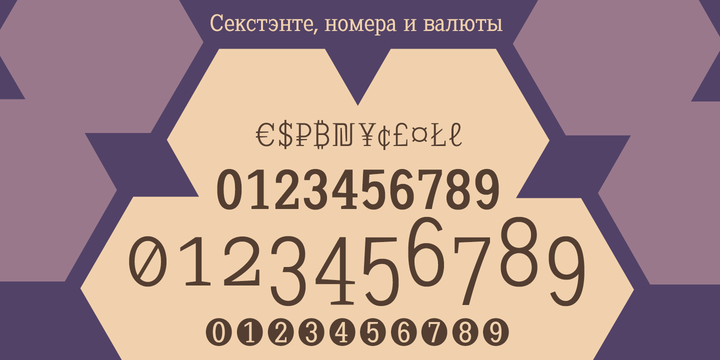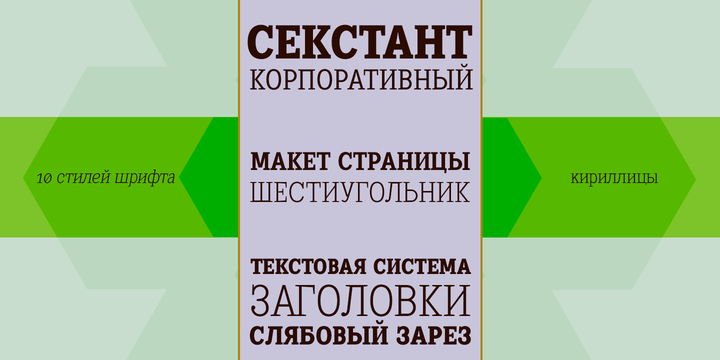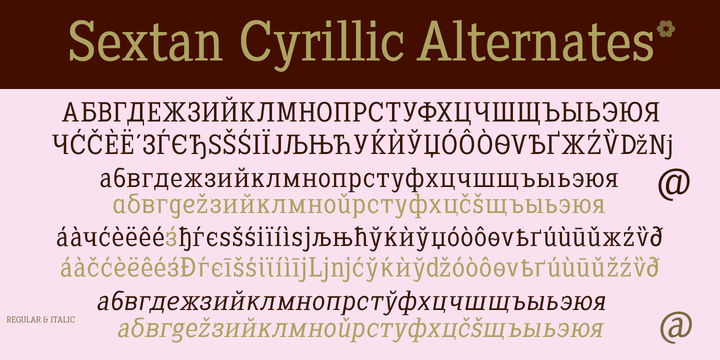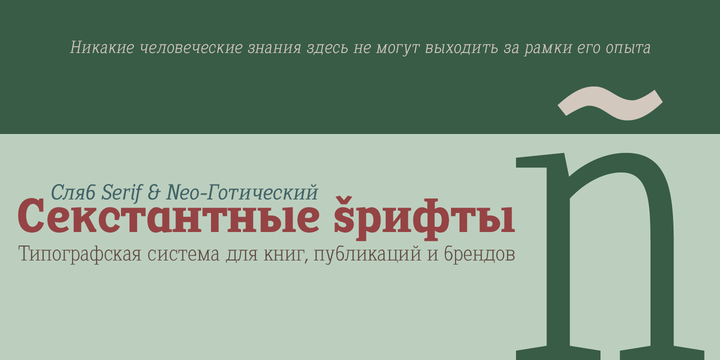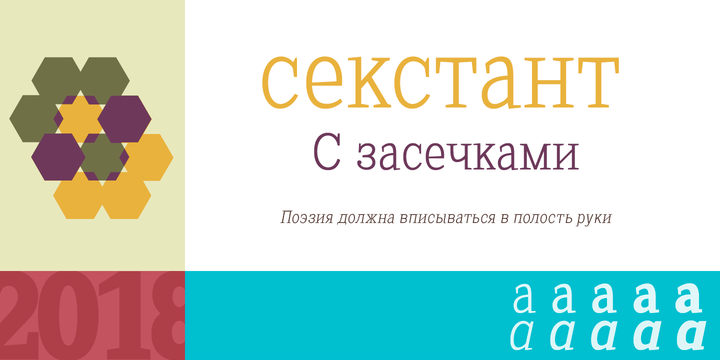
Sextan serif is a Cyrillic typeface family with 10 styles designed for editorial, corporate, advertising or web use.
The excellent readability allows the use in long texts, the coherence of forms make these fonts have a great personality.
The fonts have an extra set of lower case letters accessible through the Discretional Ligatures.
Also support for Open Type Functions such as Old Style Number, Superiors, Inferiors, Dynamic Fractions, etc.
Includes the Bitcoin symbol: b #